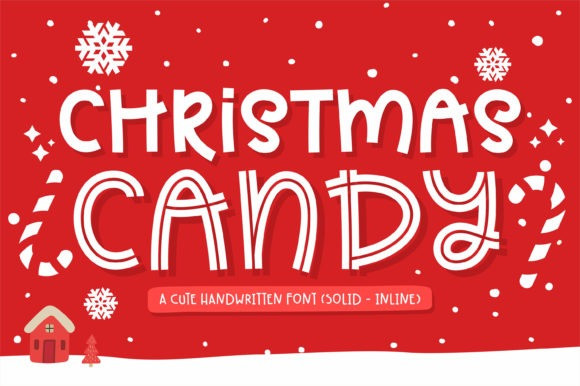
Christmas Candy Font
Christmas Candy Display Font is a cute and unique display font. It has a solid and inline character that makes your designs awesome with a great combination! Use it for children’s books, apparel designs, greeting cards, school materials, and more!